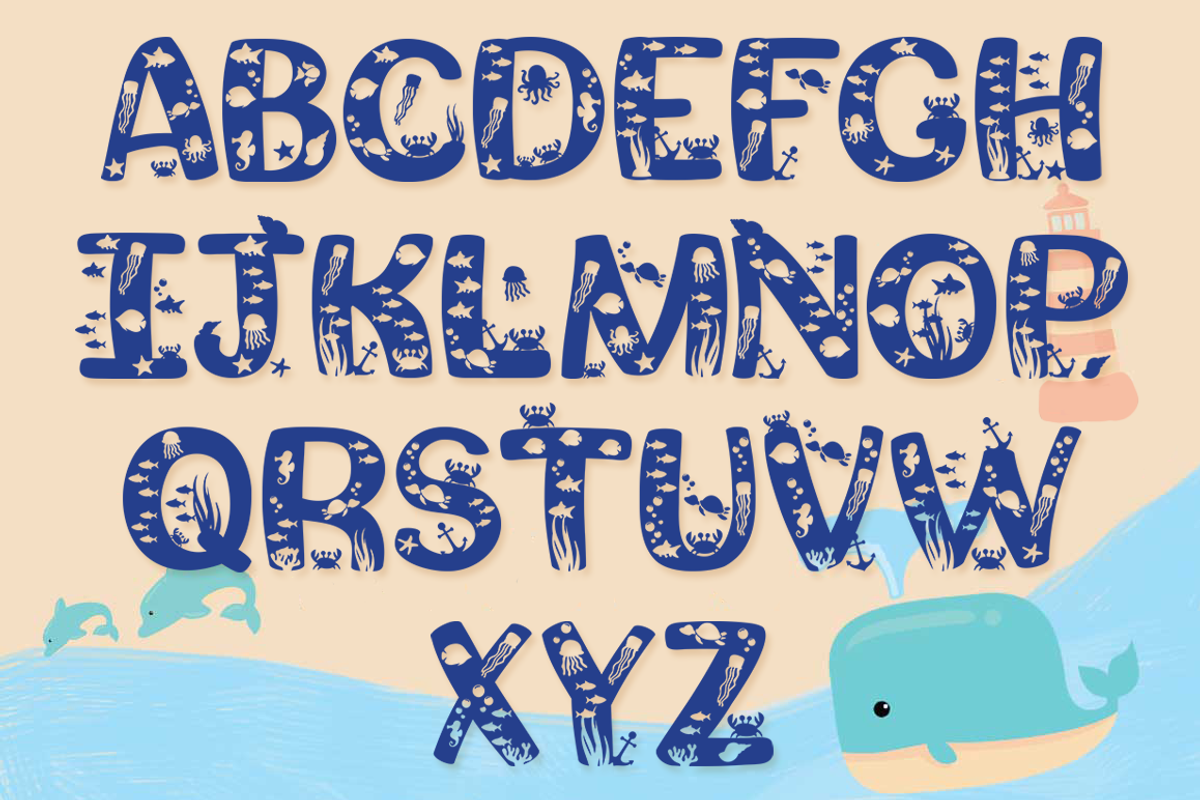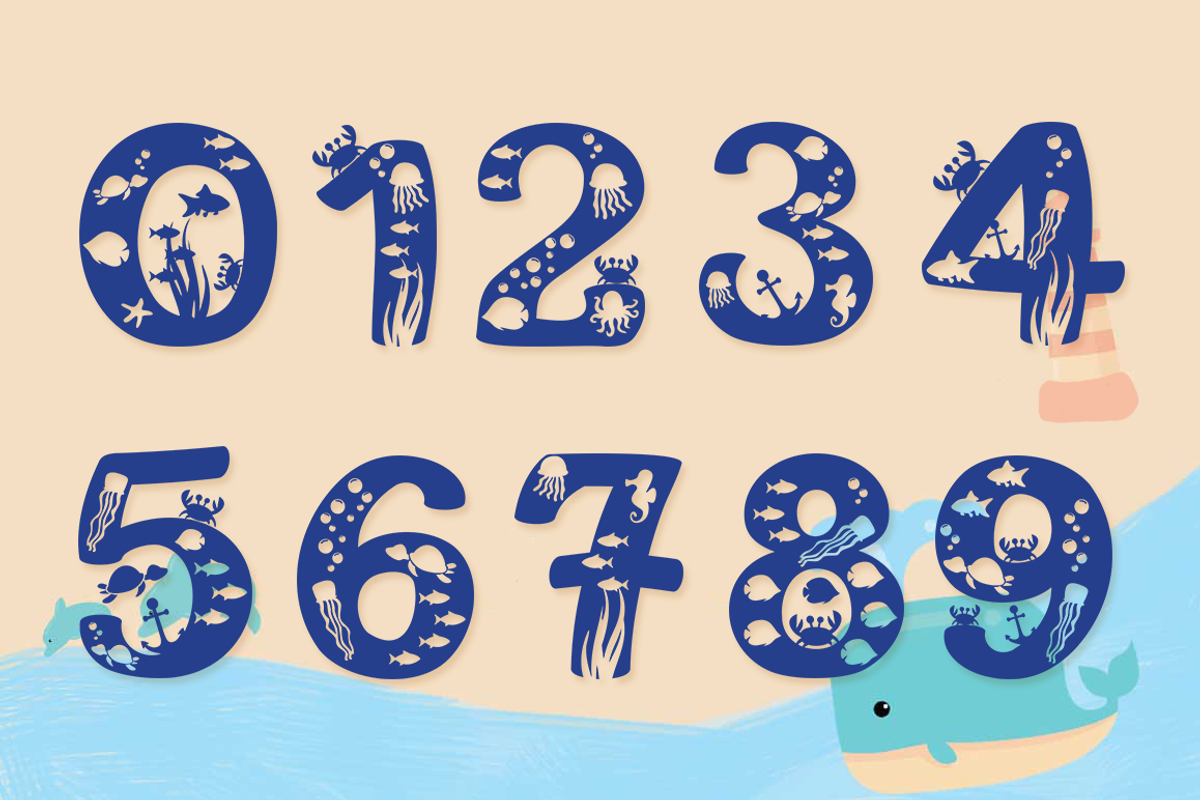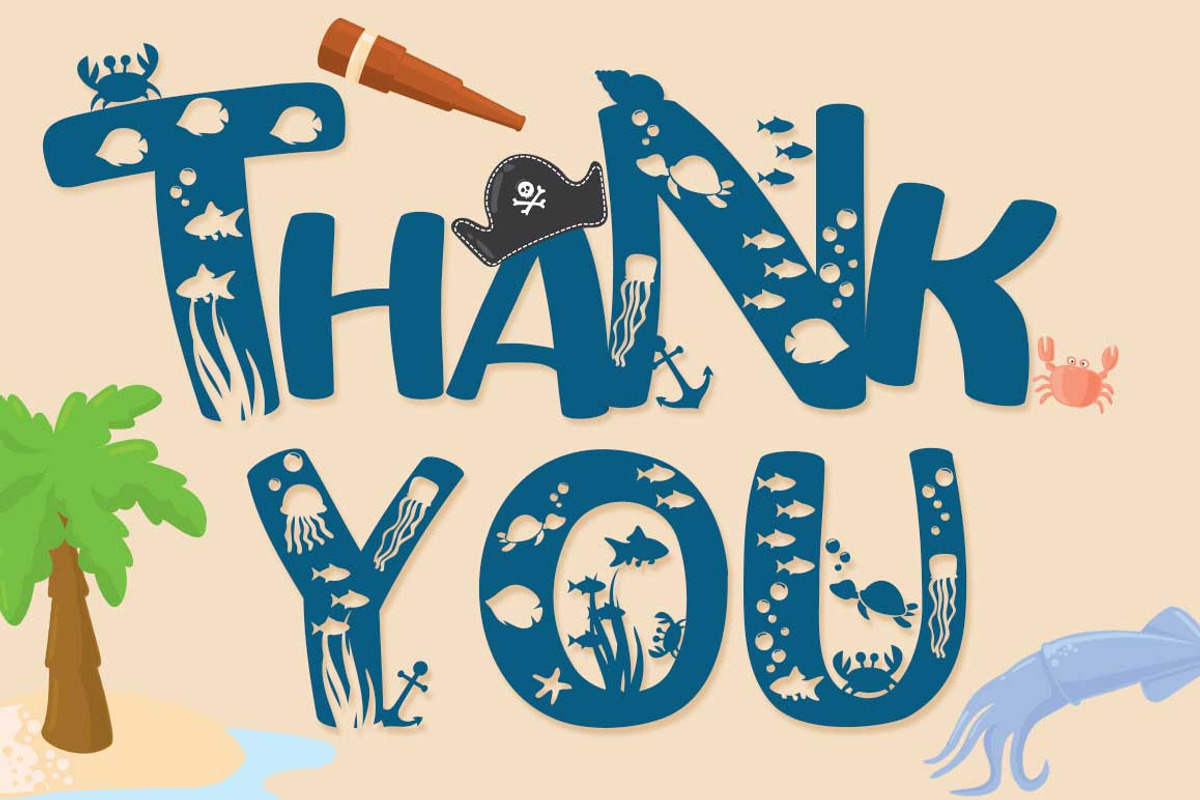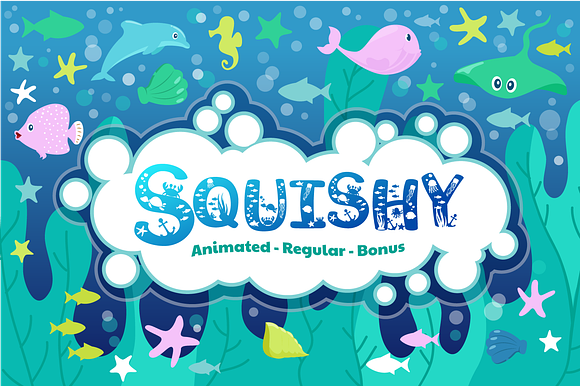
Squishy - A Fun Beach Font
If you had seen my fonts before, you know that I like creating playful fonts. This font is no different.
It is a handcrafted font created from scratch, using as little points as possible to ensure you get the best results with minimum difficulty.
Squishy with Regular + Animated version. Comes with A-Z letters.
Squishy Extras with 19 marine creatures. Access them through the A-S letters.